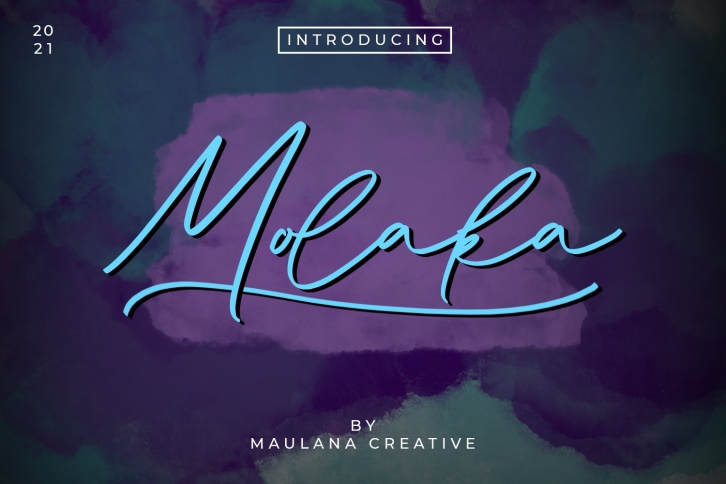
Molaka Modern Script Font Download
Molaka Modern Script is a gorgeous font that was realeased on February 3, 2021. The font can be used in many style contexts and design environments. Perfect for invitations, magazines, websites, logos, and more! It was designed by Maulana Creative and the file size is 9.60 MB. Thanks for checking out this font!